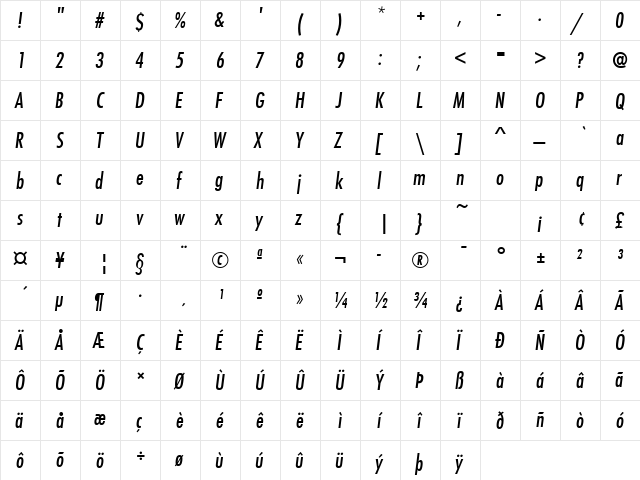
FuturaTMedCon Italic
Design Context for FuturaTMedCon Typeface
FuturaTMedCon channels digital-age aesthetics through its sharp, structured letterforms — ideal for brands that want to signal innovation. Its italic angle brings a sense of urgency and motion to the letterforms.